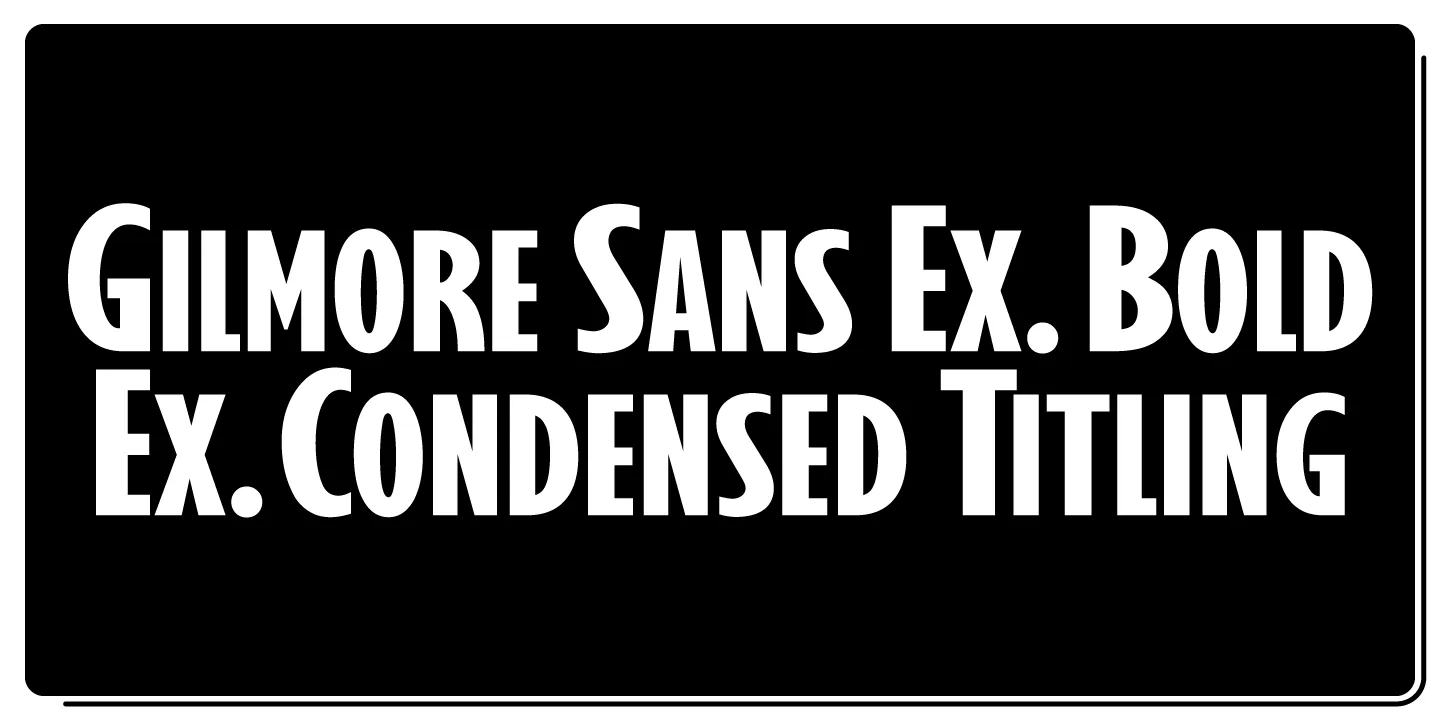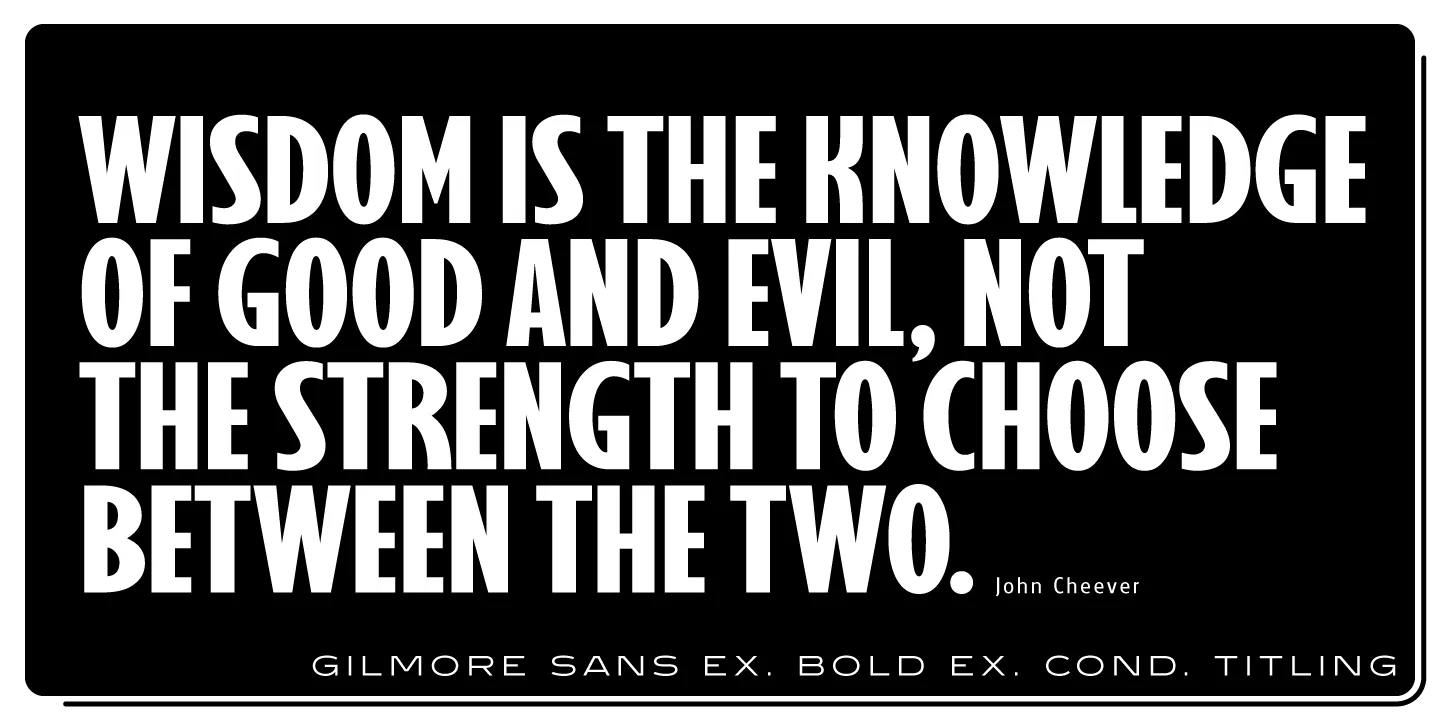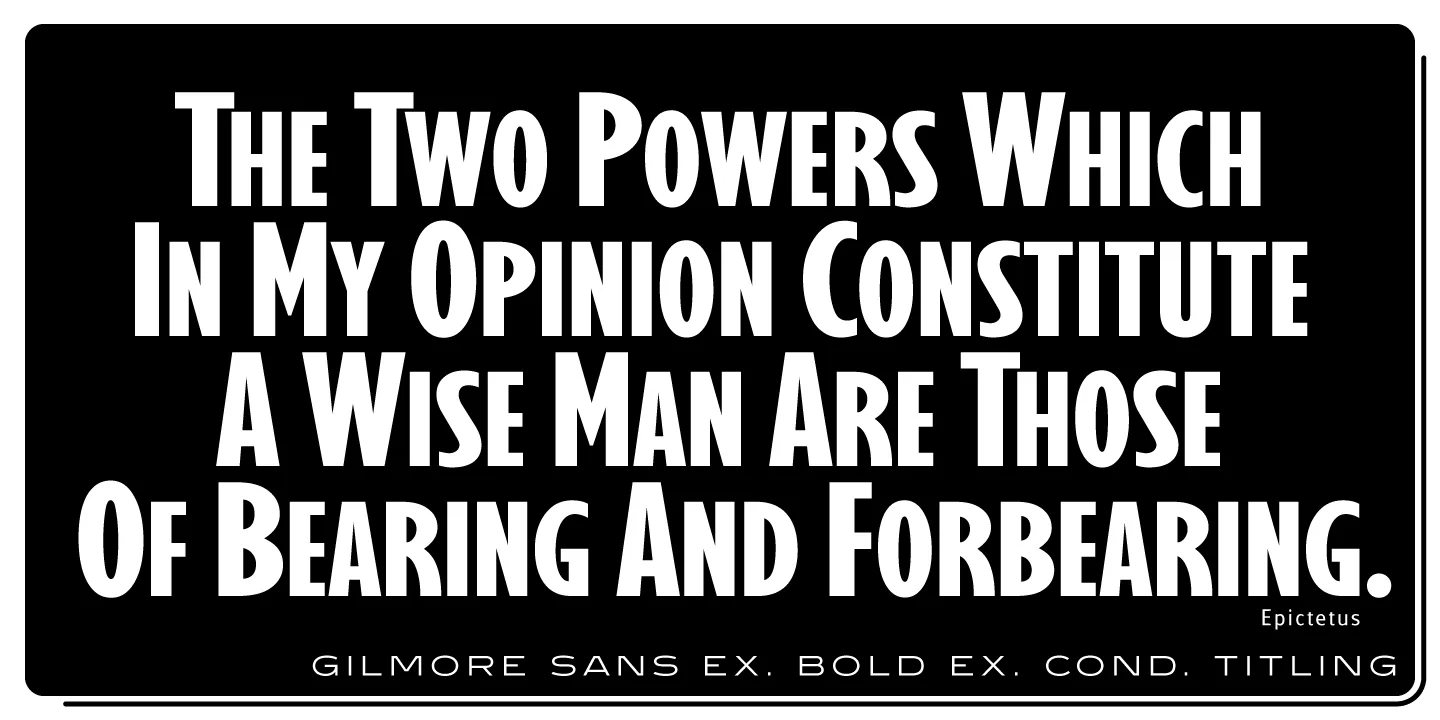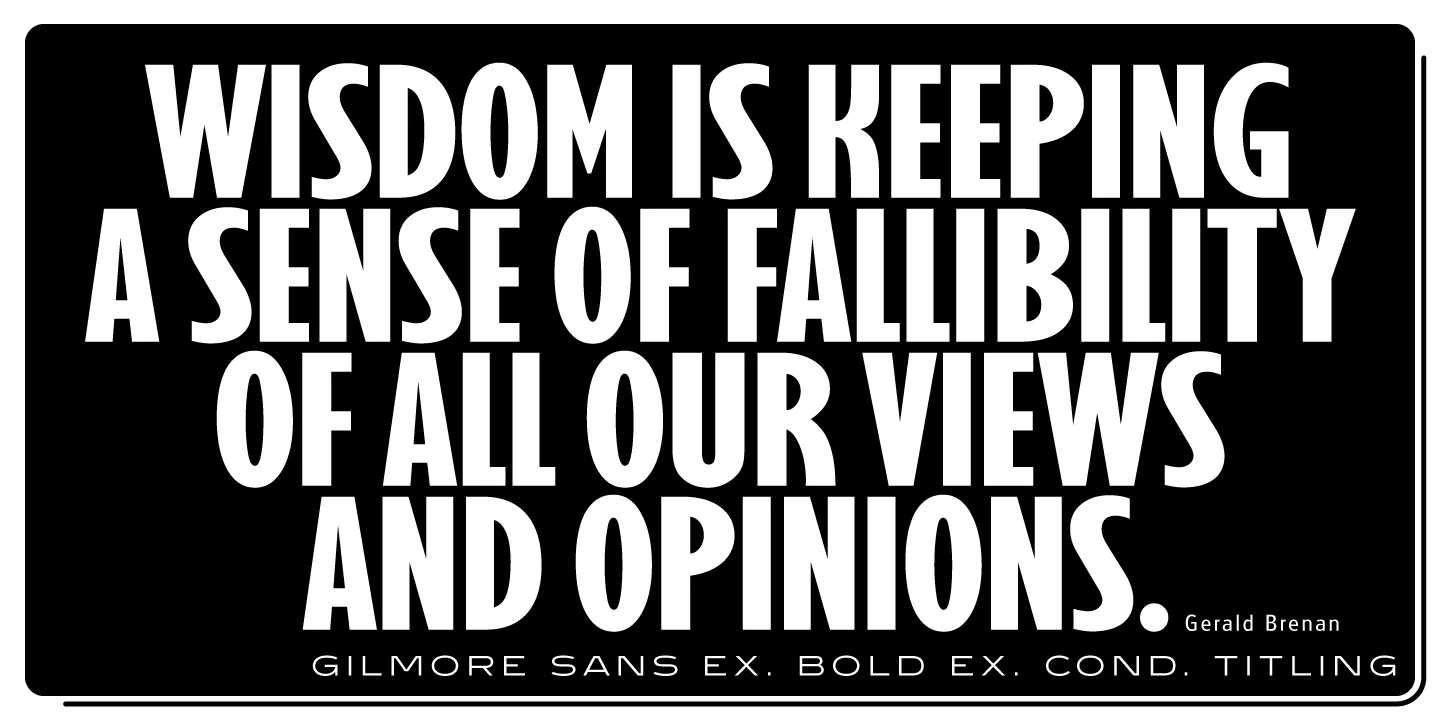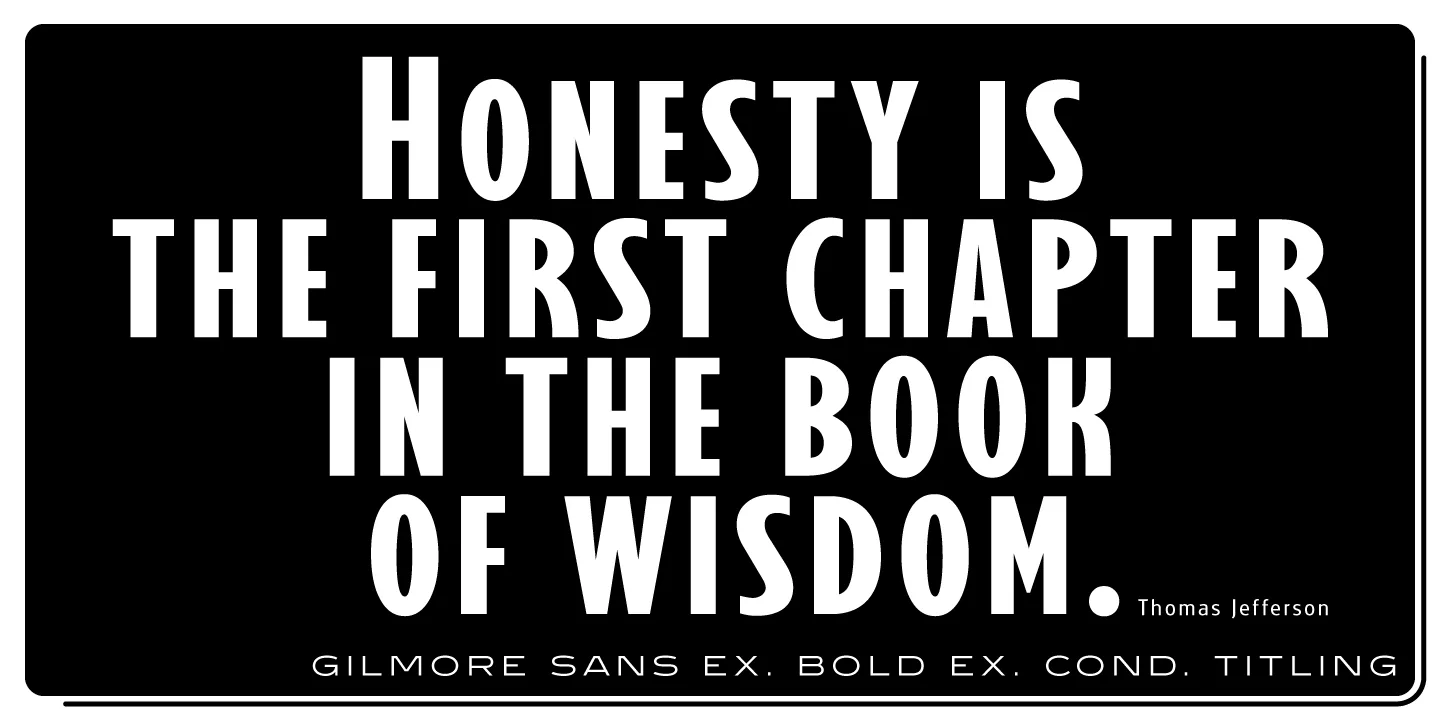
Gilmore Sans Font
Gilmore Sans Extra Bold Extra Condensed Titling is a sans serif typeface that was inspired by early designs from the renowned English typographer Eric Gill. It was designed in 1992 by A. Pat Hickson (P&P Hickson) and Steve Jackaman (ITF) exclusively for the Red Rooster Collection. It has a clean, fresh, sturdy feel that is exceptionally powerful at display size. The typeface lends itself well to a variety of projects, including everything from packaging to signage to high-profile advertising campaigns.
Gilmore Sans